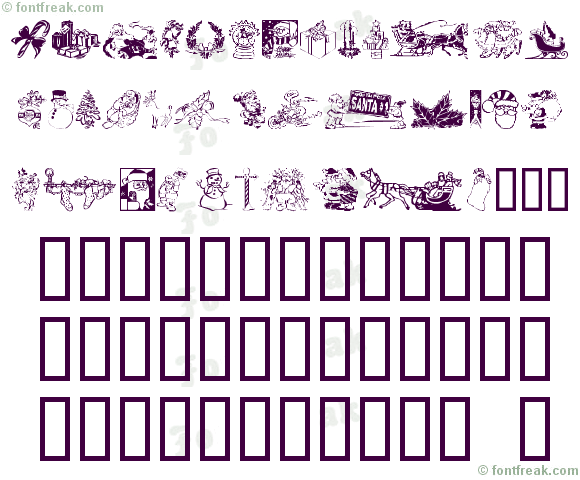
Xmas Clipart 2
About Xmas Clipart 2
The Xmas Clipart 2 font by Gemfonts is a unique decorative typeface that captures the festive spirit of the holiday season. This font falls into the category of dingbats, featuring playful and whimsical designs that include various Christmas-themed images and motifs. The visual characteristics of the font showcase a bold stroke weight, making it highly visible and eye-catching. The elements are well-spaced, ensuring clarity even when used in smaller sizes, while the intricate designs add a delightful touch to any project.
Xmas Clipart 2 is perfect for a variety of holiday-related applications. It shines in creating festive greeting cards, where its charming illustrations can convey warmth and cheer. Additionally, it is an excellent choice for holiday party invitations, adding a playful flair that sets the mood for celebration. The font can also be used in seasonal marketing materials, such as flyers or banners for local businesses, helping to attract customers with its engaging visuals. Content creators and social media managers will find it useful for holiday-themed posts, where unique graphics can enhance their storytelling.
The target audience for this font includes graphic designers looking to add a touch of holiday cheer to their projects, small business owners wanting to promote their seasonal offerings, and content creators aiming to engage their audience with festive visuals.